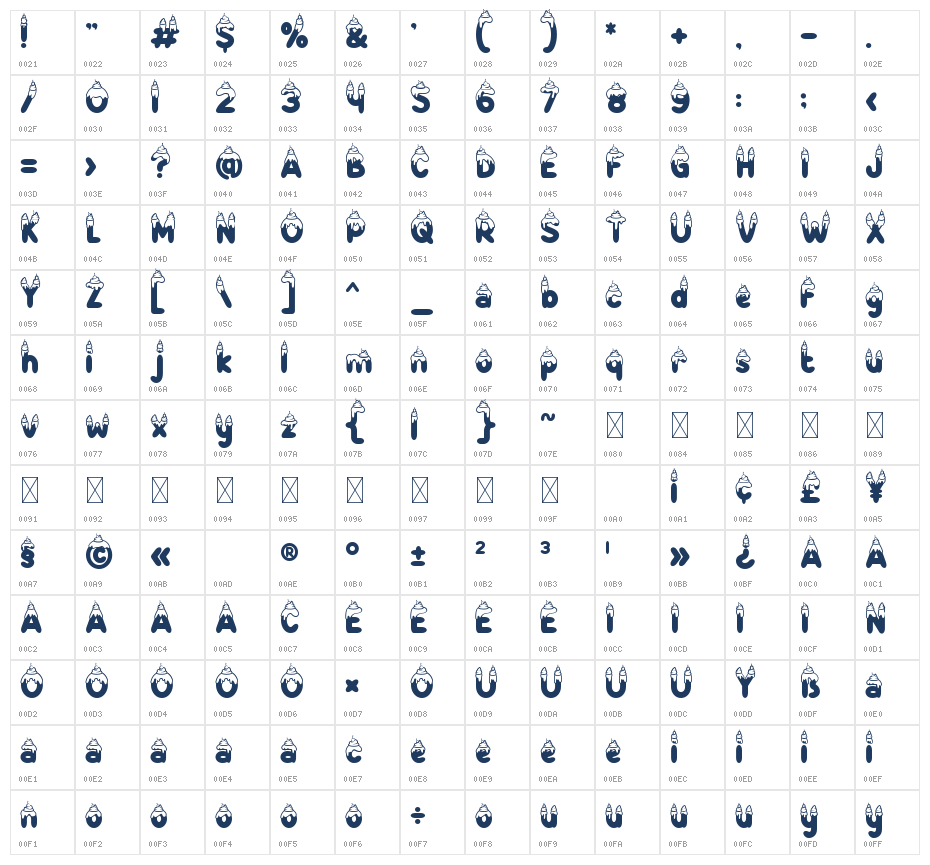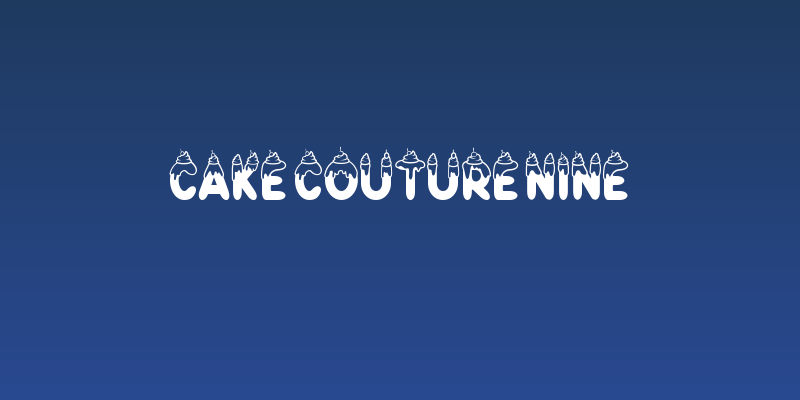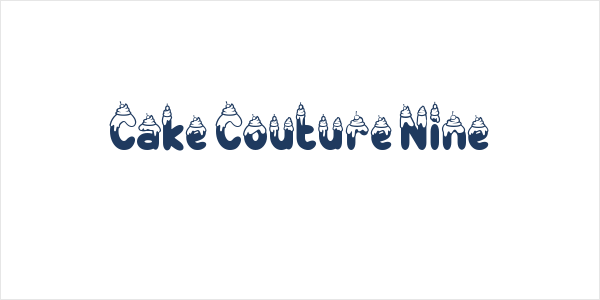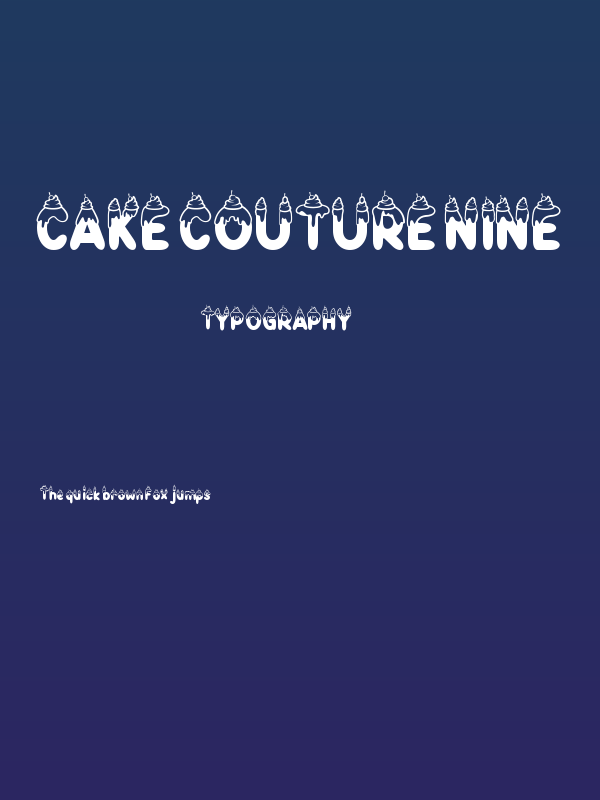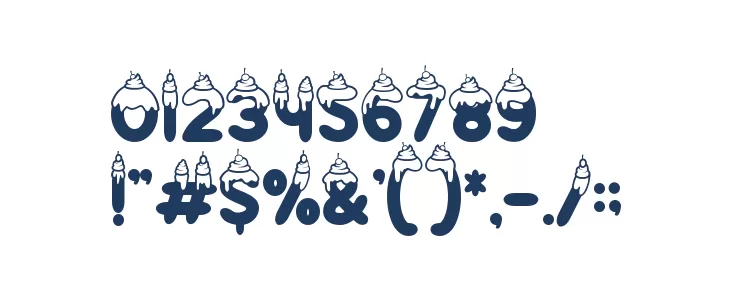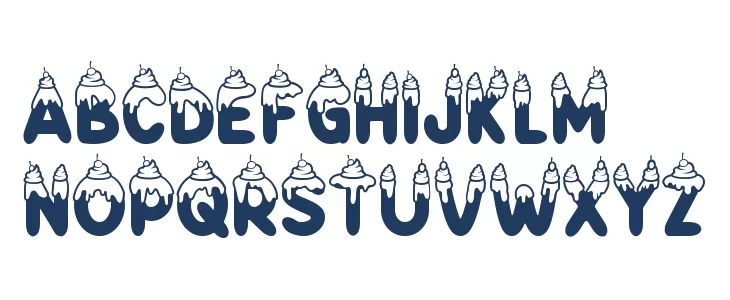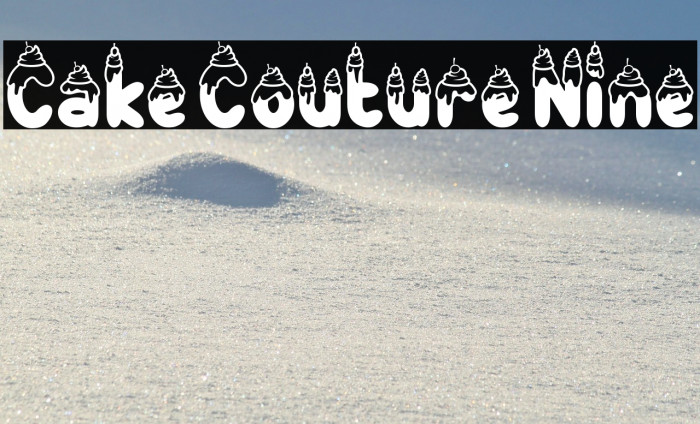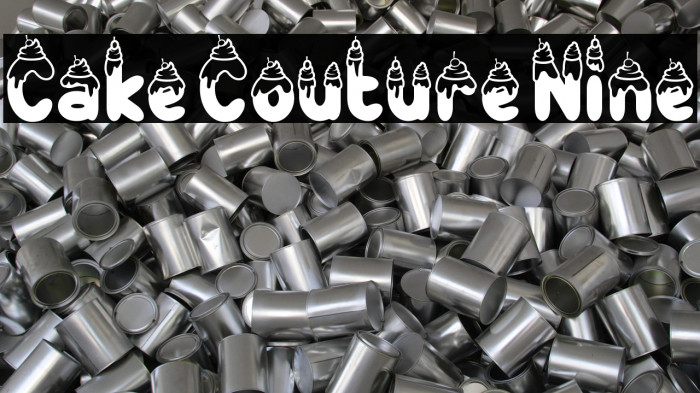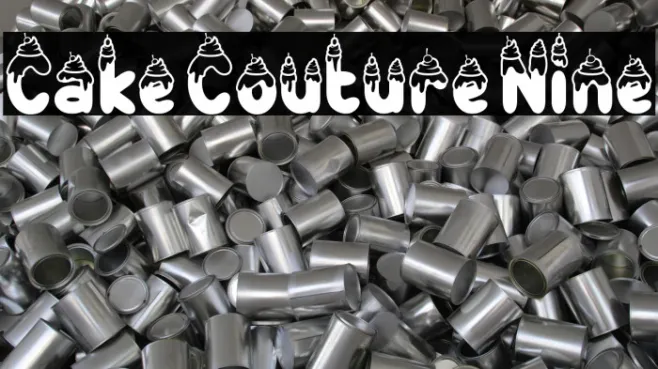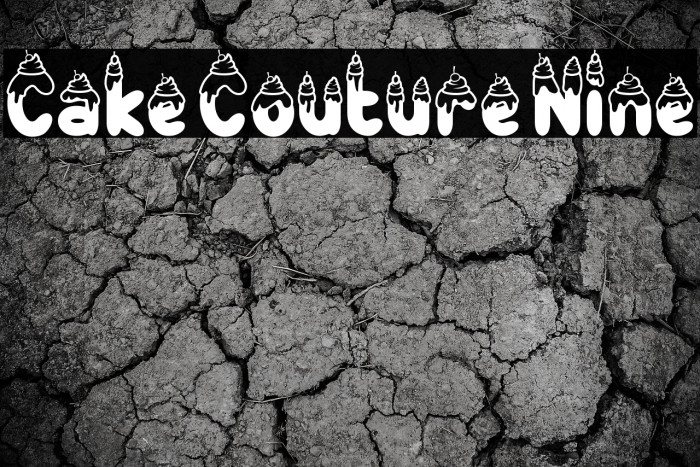
Cake Couture Nine Font
Cake Couture Nine Description
Playful, rounded font with a dripping icing or frosting effect on each character, giving a sweet, dessert-inspired appearance.
| Overall Style | Playful, Whimsical, Dessert-inspired |
| Use Case | Headlines, Logos, Packaging, Children's materials |